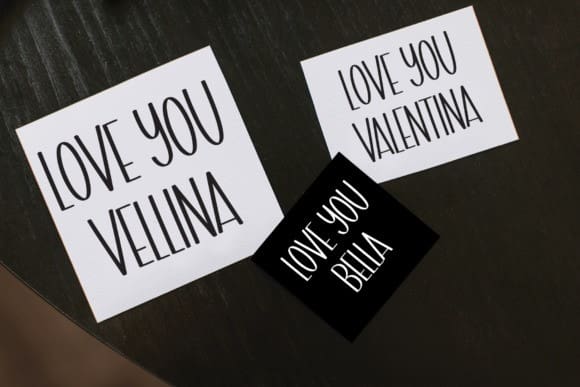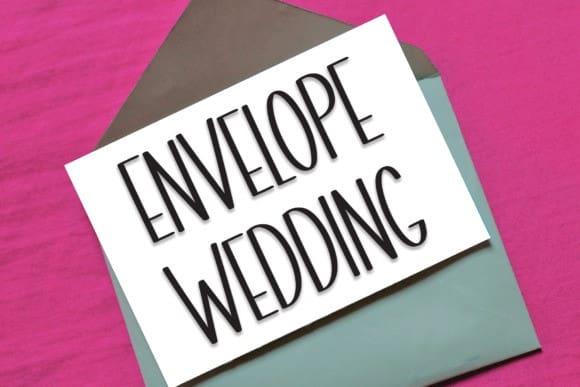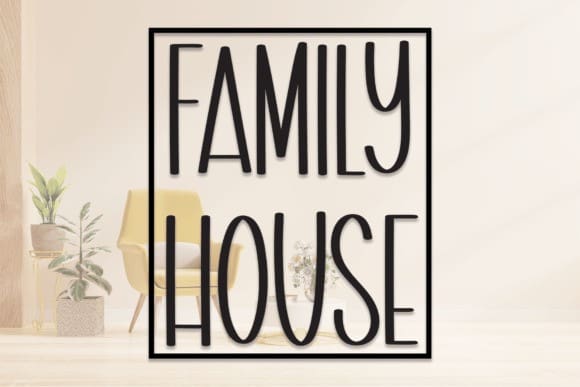
Family House Font
Family House Font is a playful and friendly handwritten font. It looks beautiful on a variety of designs requiring a personalized style, such as wedding invitations, thank you cards, greeting cards, logos, and so on.